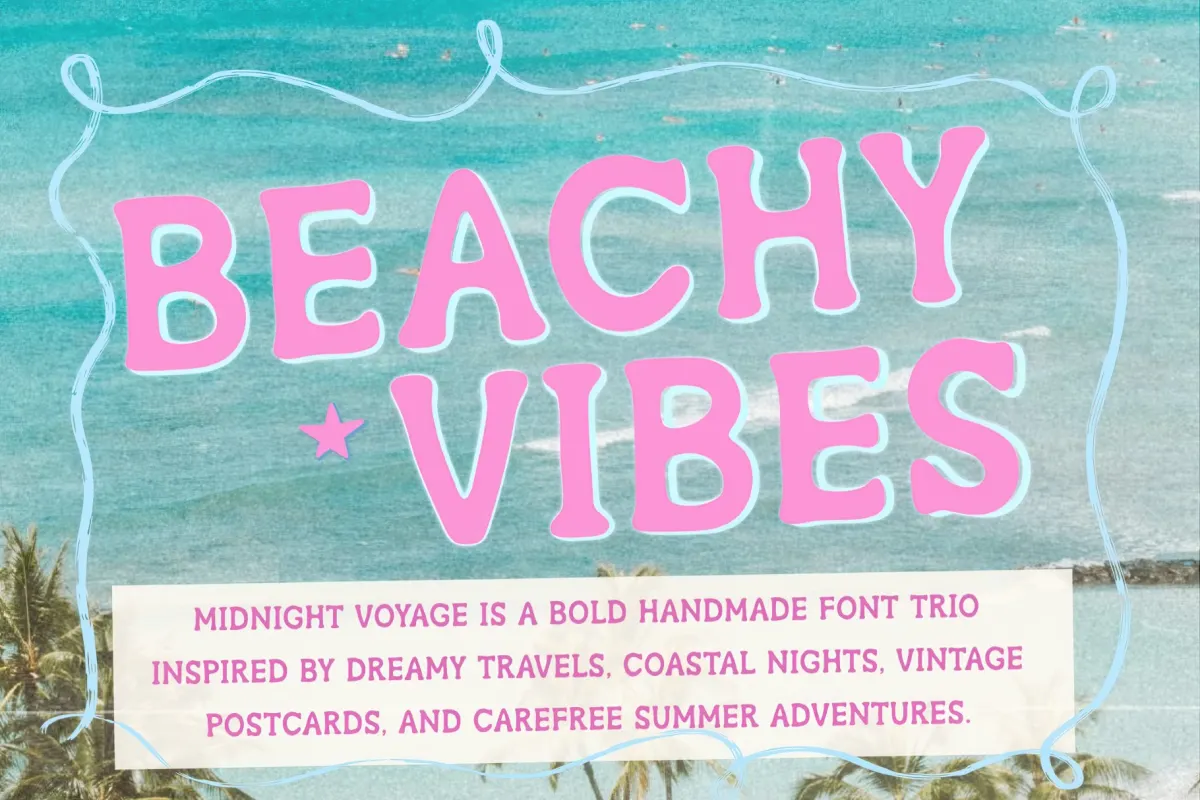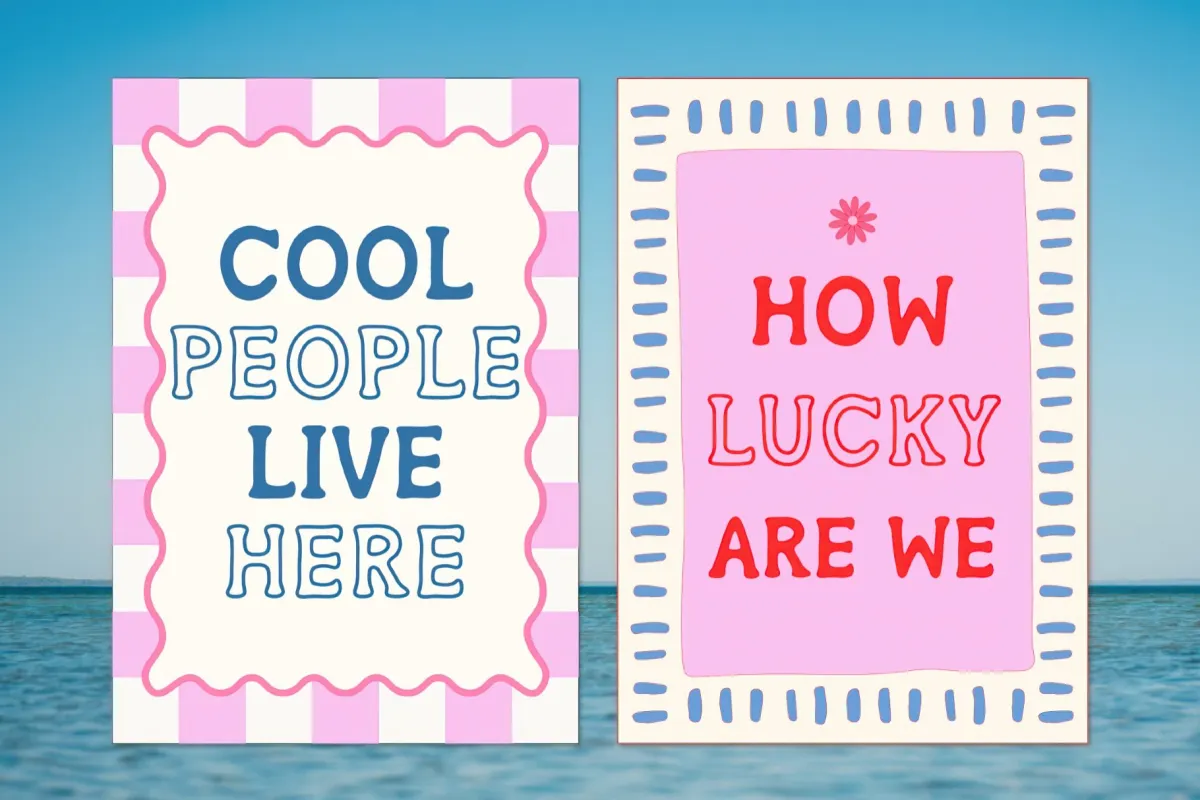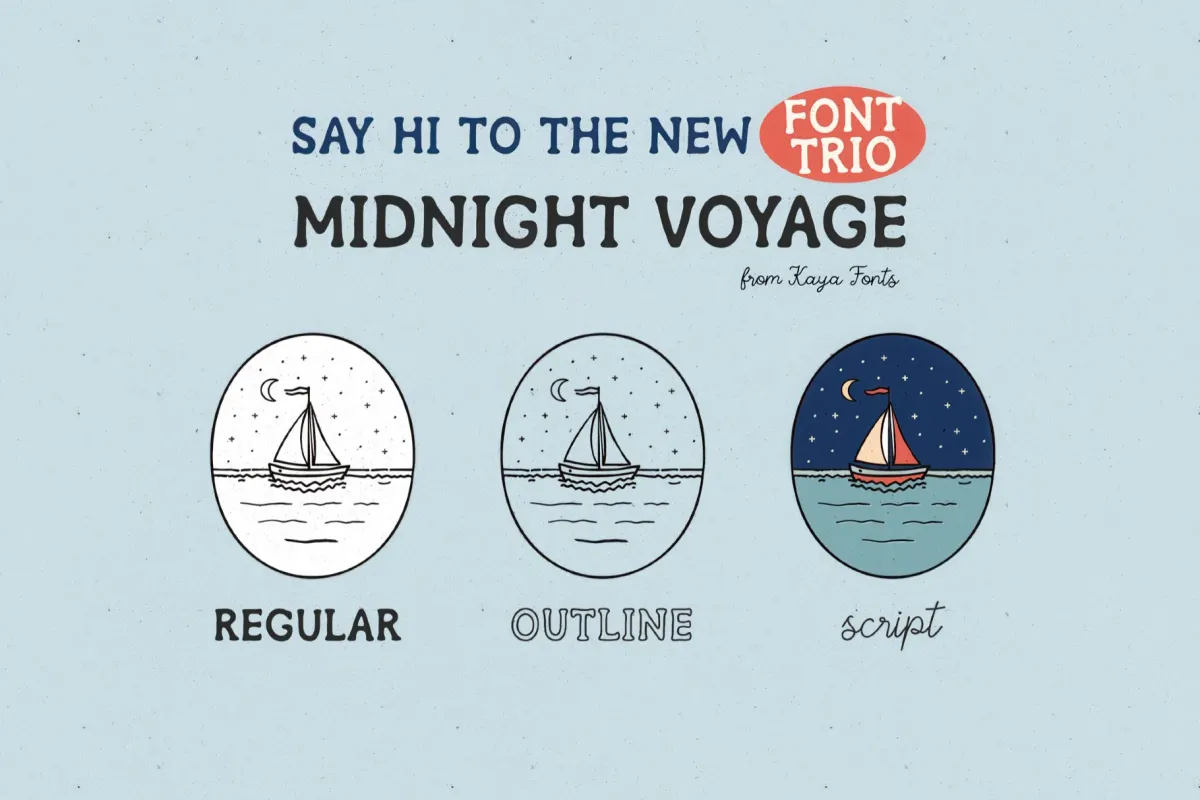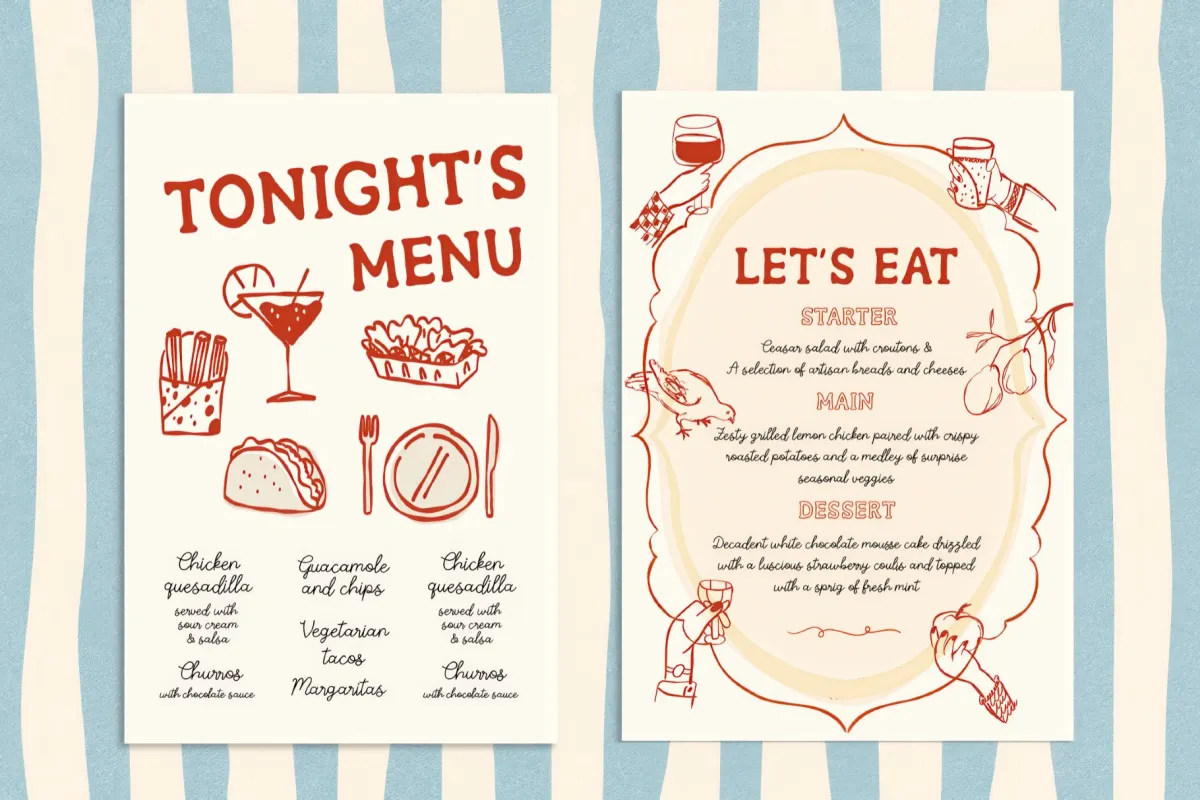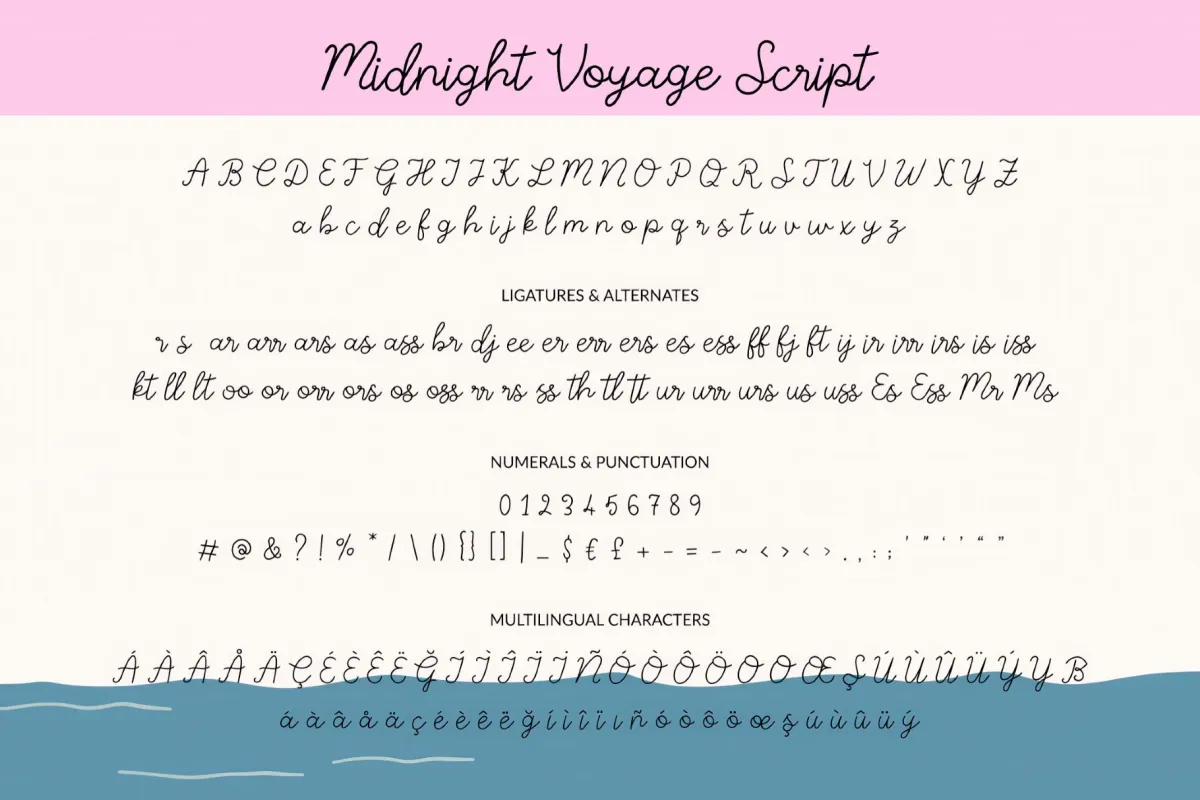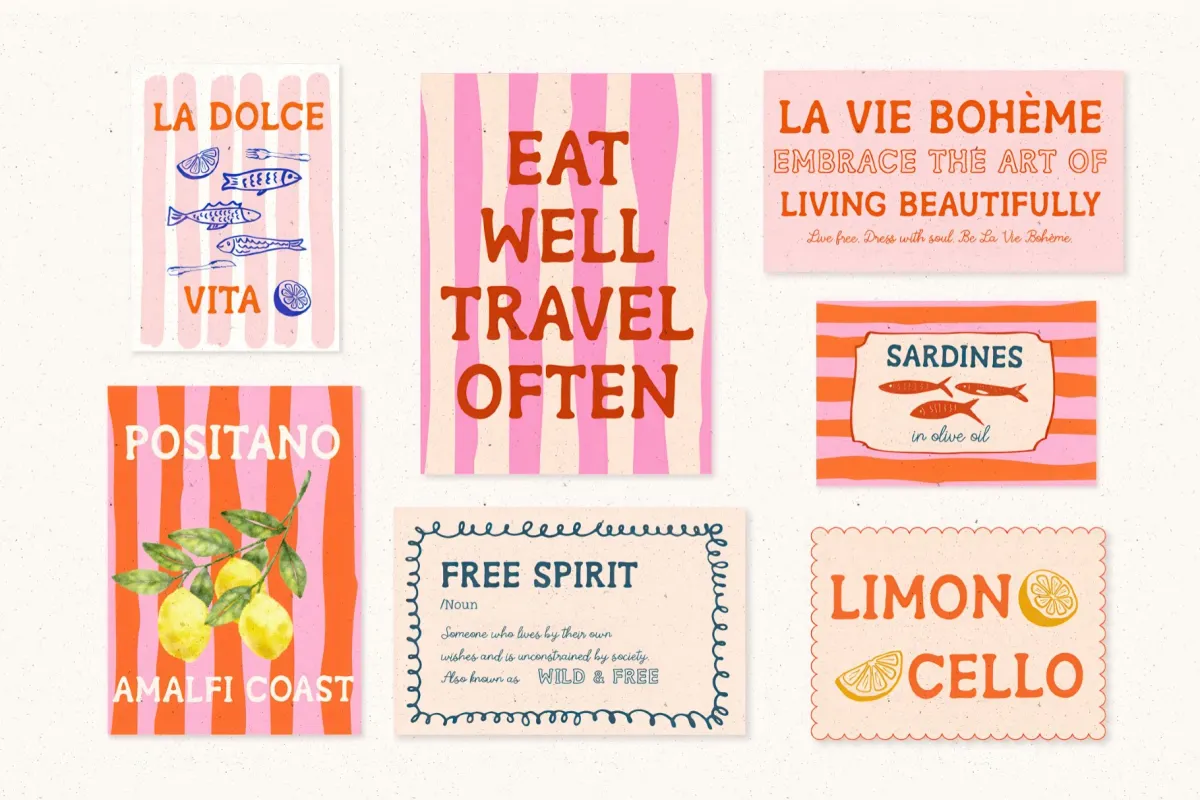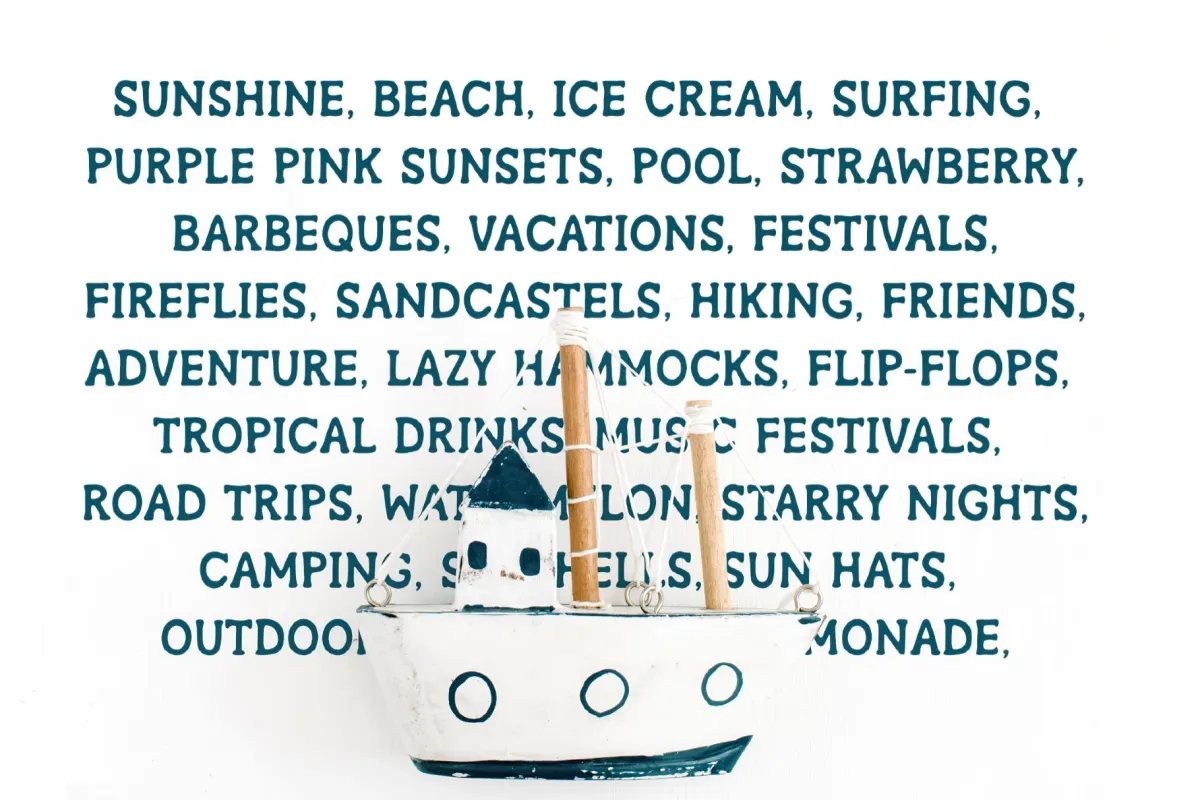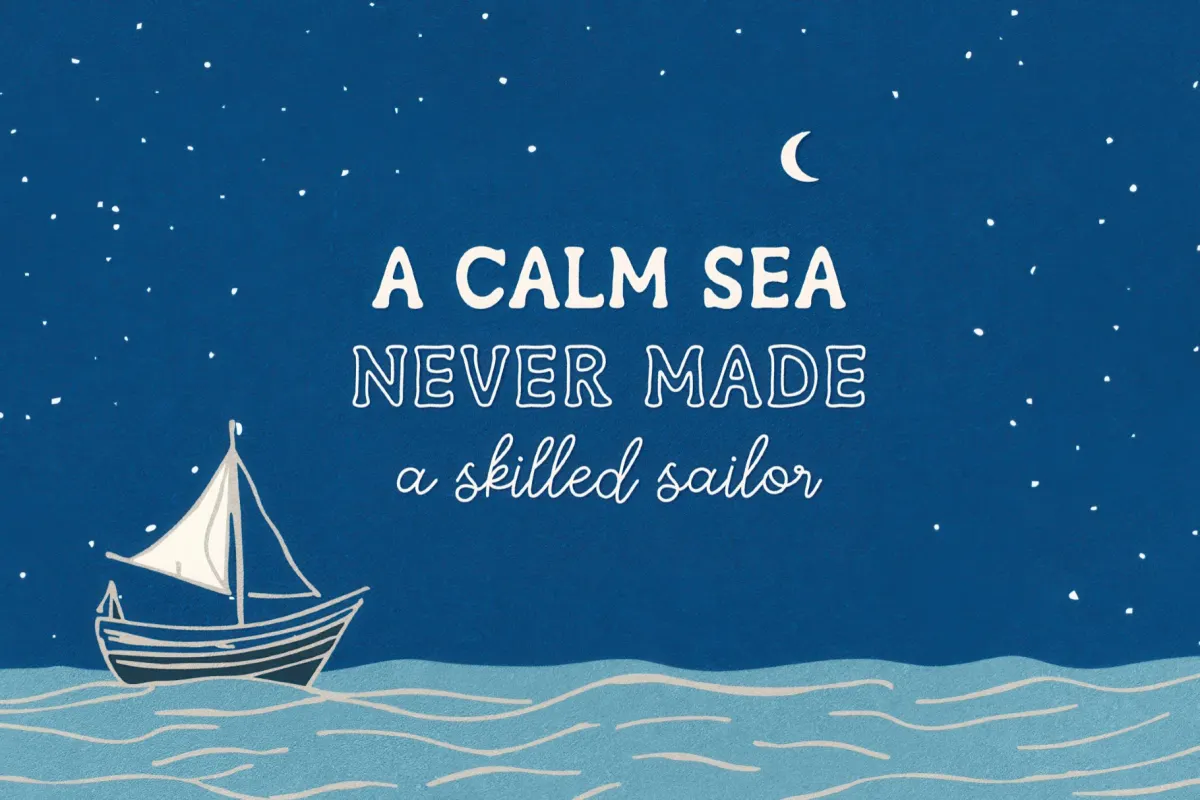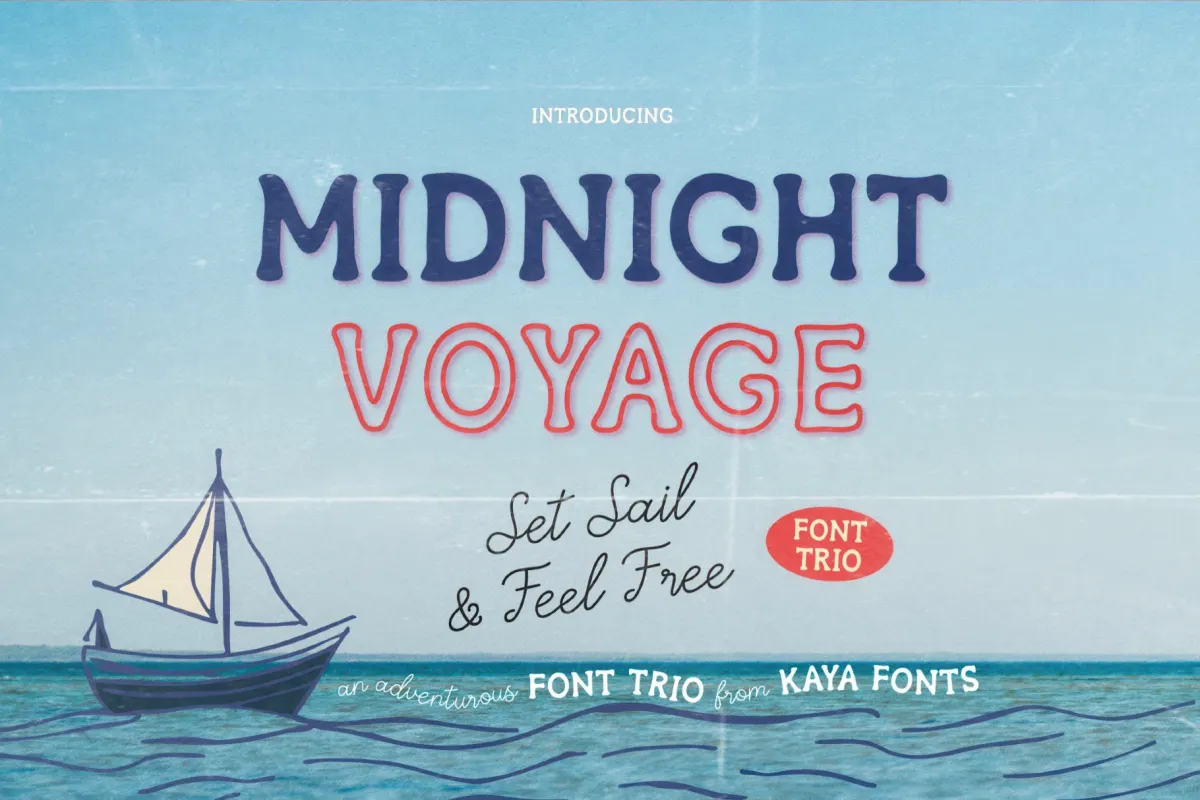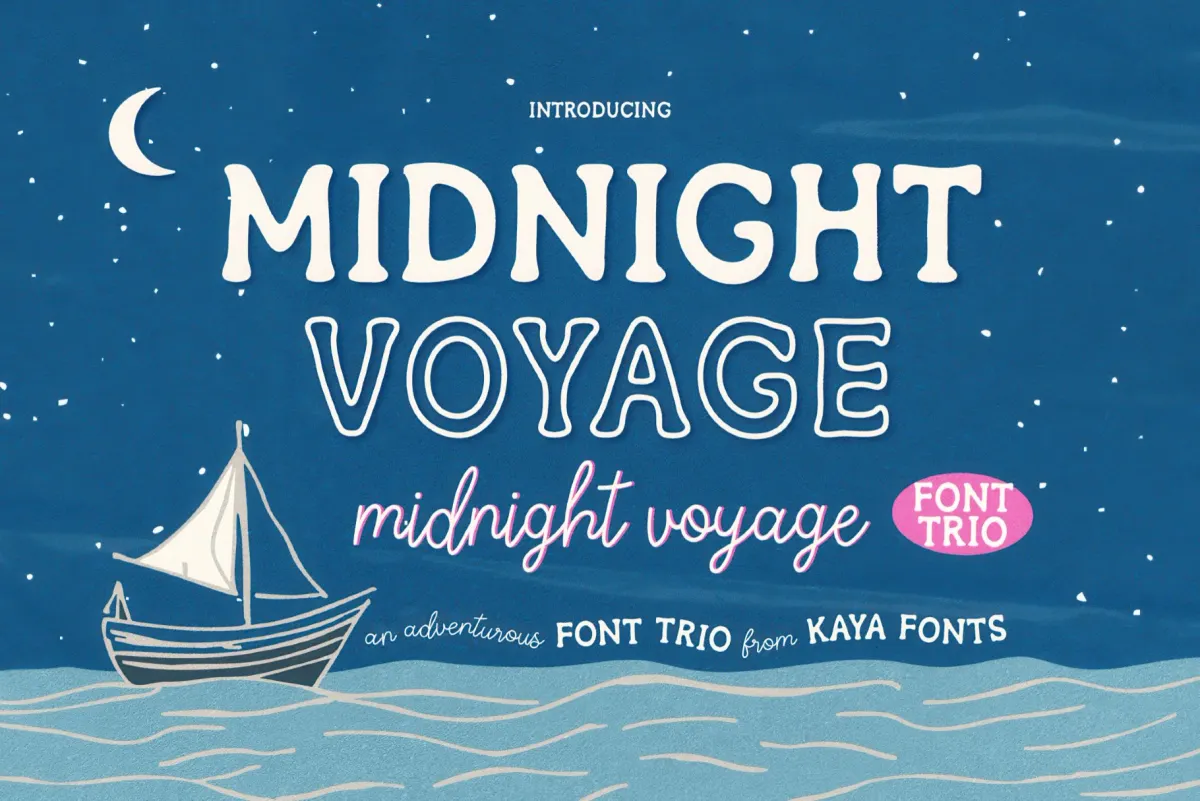
Midnight Voyage Font Trio
Midnight Voyage brings you to the Mediterranean coast, where this bold hand-drawn font trio blooms on gelateria signboards, lemon-grove crate labels, and sun-bleached Riviera travel posters. The regular weight is drawn by hand, so the rounded bowls and slightly uneven contours bring up a painted seaside sign kissed by the salty wind and white sand.
The set runs across three styles: a heavy all-caps display, a matching outline, and a thin handwritten script. The display weight anchors a poster headline or a logotype on its own, and the outline layers over the solid cut or drops onto stickers and labels for a lighter line. The script handles softer notes, such as seaside taglines, menu subheads, and signatures under a hard-edged title.
Uses:
- Branding and logos — gelaterias, trattorias, limoncello makers, coastal boutiques, beach clubs.
- Poster and flyer design — travel posters, summer festivals, aperitivo nights, market events.
- Packaging design — olive oil bottles, citrus crate labels, pasta boxes, wine tins, soap wraps.
- Menus and editorial — restaurant menus, café boards, chapter openers, pull quotes.
- Merchandise — totes, tea towels, postcards, enamel pins, sticker sheets.